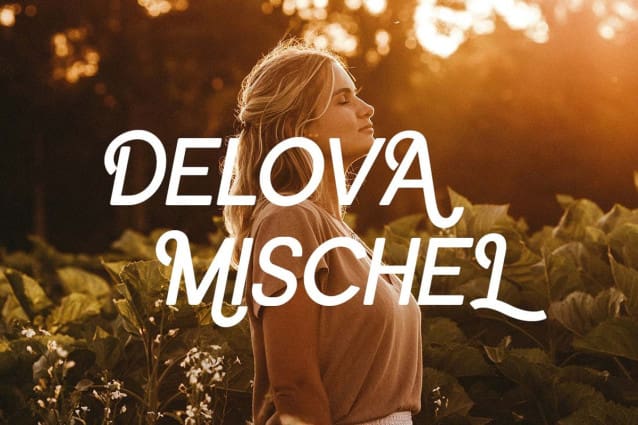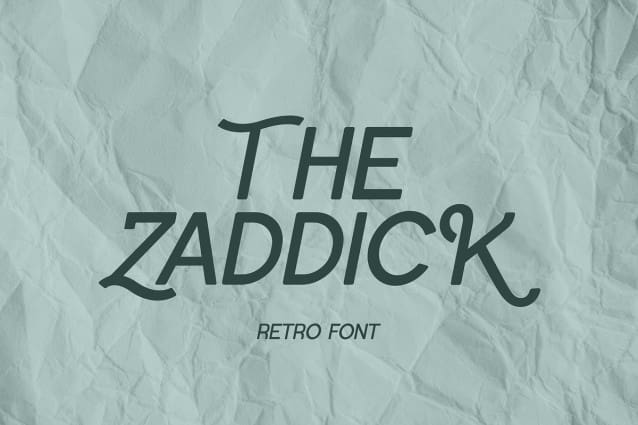
The Zaddick Font
The Zaddick Font, the modern display font feels beautiful classy, elegant, and stylish. This font is ideally suited for a wide variety of projects, such as signature, stationery, logo, wedding, typography quotes, magazine or book covers, website headers, branding, and more. Also, fashion-related branding or editorial design displays both masculine and feminine qualities.